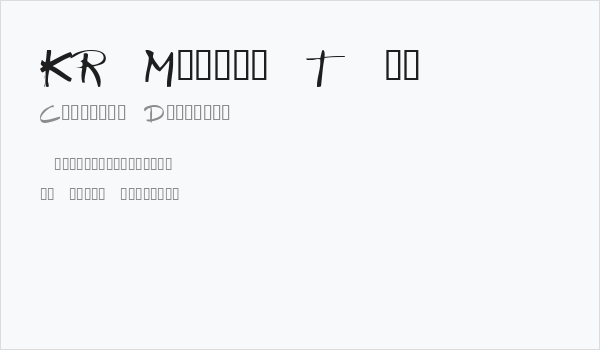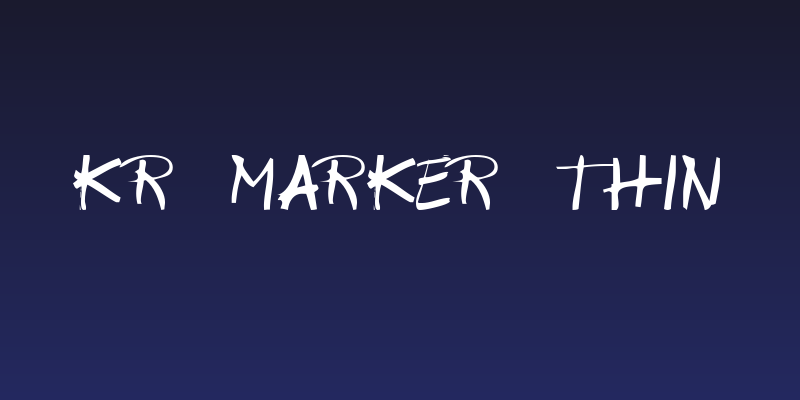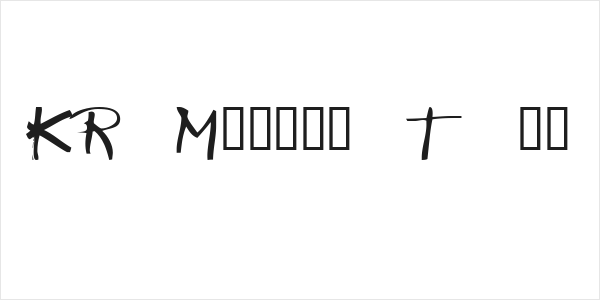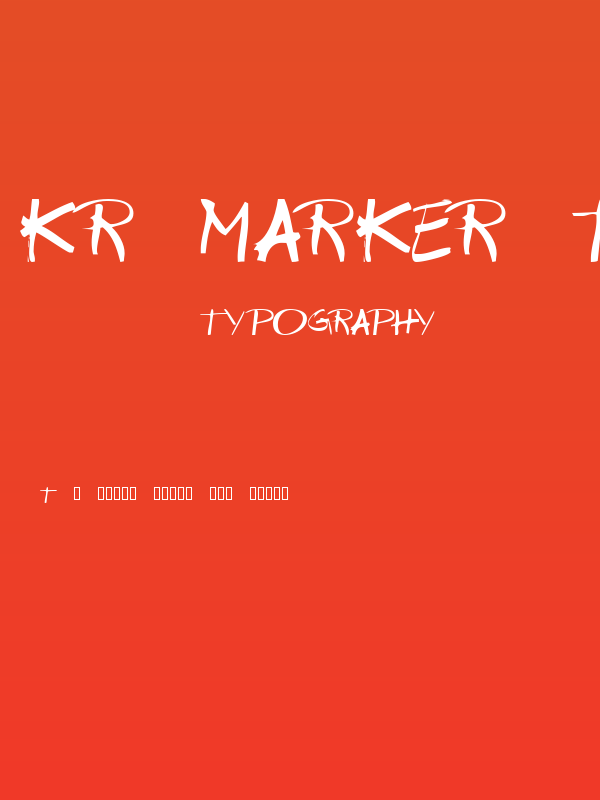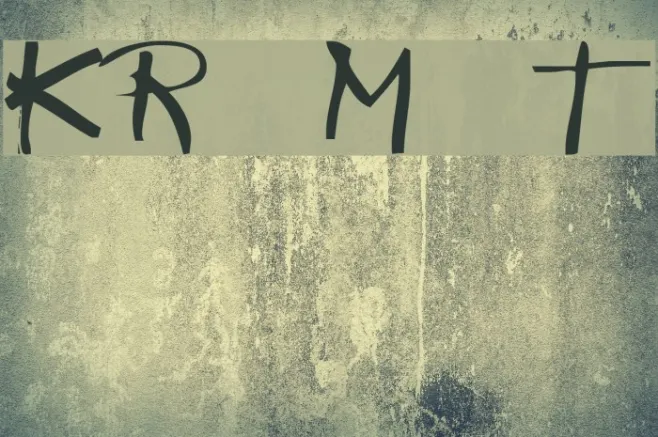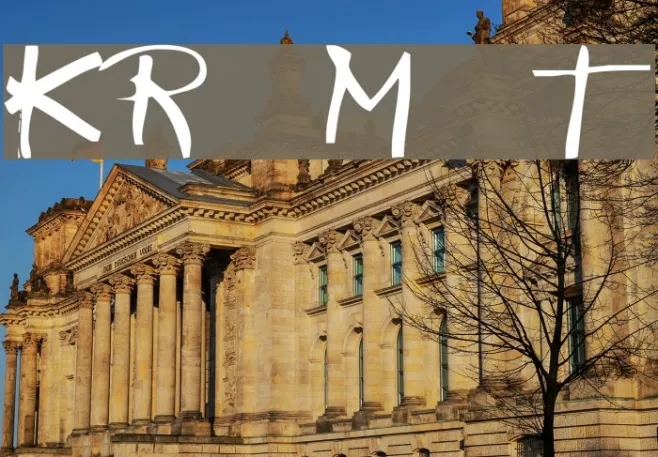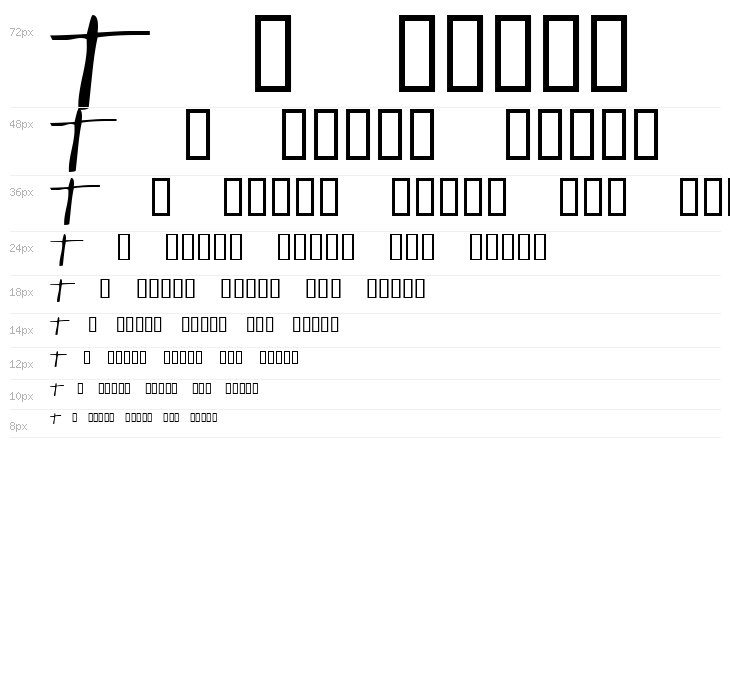
KR Marker Thin Font
KR Marker Thin Description
This font features a dynamic and energetic style, reminiscent of hand-drawn marker strokes. The letters exhibit a playful and informal character, with varying stroke widths that add a sense of movement and spontaneity. The uppercase letters are bold and assertive, while the lowercase letters maintain a consistent flow, enhancing readability. The font's unique personality is further emphasized by its slightly irregular shapes and angles, giving it a distinctive, artistic flair. Ideal for projects that require a touch of creativity and individuality, this font stands out with its expressive and lively appearance.
| Proposed Projects | Great for posters, creative branding, children's books, and artistic projects. |